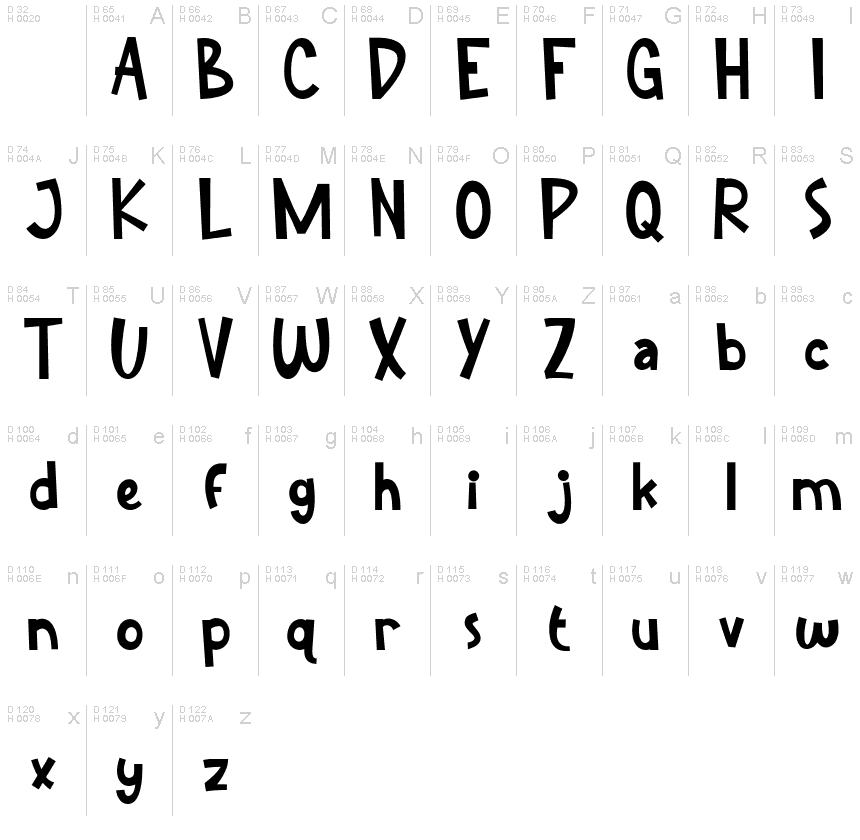
Kids Dream Demo
Kids Dream, the latest creation by Calligraphy Fonts, is a playful display font that will bring joy and whimsy to any project. With its comic style and semi-bold weight, it's perfect for children's books, posters, invitations, and any design that needs a touch of lightheartedness. The wide range of widths in this typeface makes it versatile enough to be used for headlines or body text. From birthday cards to toy packaging, Kids Dream is the ideal font choice for any project aimed at capturing the imagination of kids and adults alike.